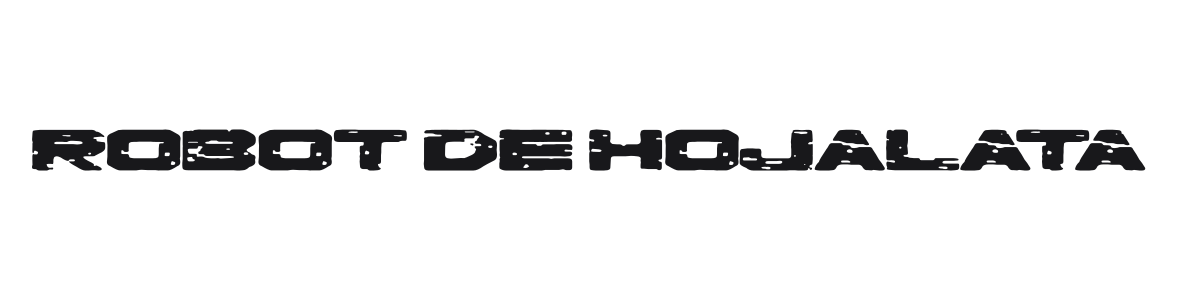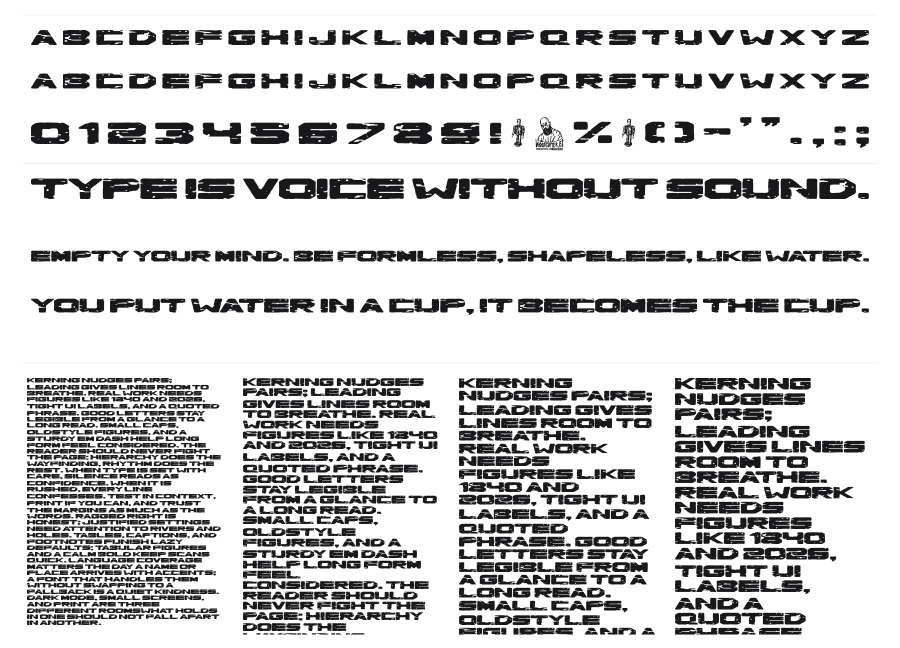
Robot de Hojalata
Robot de Hojalata is a heavy distressed display font inspired by the look of worn tin toys and retro-futurist machinery. Every character carries a rough, eroded texture that reads like aged metal or a deteriorating rubber stamp. Strong at large sizes for posters, game titles, and any project that needs a gritty mechanical edge.